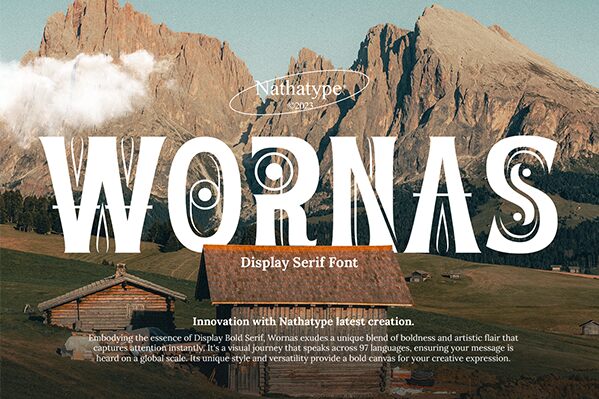
Wornas font by Nathatype is a display typeface with retro, decorative, and condensed elements. Infused with Victorian-inspired charm, it showcases ornamental and whimsical elements, creating an artistic touch with decorative flourishes. Its intriguing vintage appeal captivates attention while establishing personality, especially in branding contexts where the classical edge counts.
With its remarkable personality of nostalgia, the font is suitable for attention-demanding projects that need to communicate more than mere words. These include bulletins and notices, advertisements and magazines, logotypes and wordmarks; all of which can be taken past existing expectations thanks to this free display font’s authenticity.